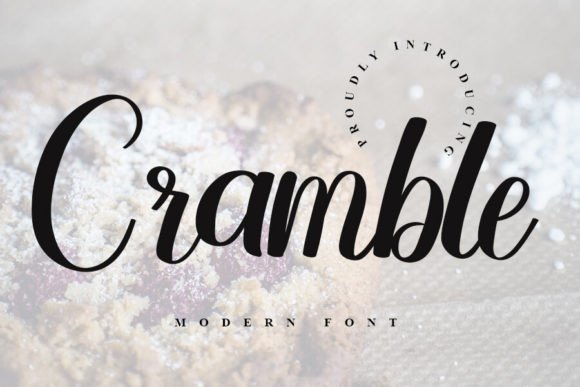
Introducing Cramble Font: The Enchanting Script Font That Will Elevate Your Designs to New Heights
In a world of ordinary fonts, Cramble Font stands out as a breath of fresh air, a font that captures the essence of creativity and innovation. Its meticulously crafted curves and elegant lines dance across the page, captivating the reader and leaving a lasting impression.
Immerse yourself in the allure of Cramble Font, a script font that exudes charm and sophistication. Its delicate strokes and playful flourishes add a touch of whimsy to any project, whether it's a YouTube banner, cover logo mockup, wedding invitation, ID card, flyer, or craft project.
With Cramble Font, you'll embark on a journey of self-expression, turning your creative visions into reality. Unleash your inner artist and let your imagination soar as you explore the endless possibilities of this captivating font.
Step into a realm of endless creativity, where Cramble Font transforms your designs into works of art. Its versatility knows no bounds, adapting seamlessly to a myriad of projects and styles. Experience the joy of crafting stunning logos that exude professionalism and leave a lasting impact on your audience.
Indulge in the beauty of Cramble Font's handwritten charm, a font that evokes a sense of nostalgia and warmth. Its flowing lines and graceful curves add a personal touch to your designs, creating a connection with your audience that resonates on a deeper level.
Unlock the power of Cramble Font and watch your business flourish. Its unique and captivating style attracts attention and sets you apart from the competition. Elevate your brand identity with a font that speaks volumes about your commitment to excellence and innovation.
Embark on a creative adventure with Cramble Font, a font that will ignite your passion and fuel your imagination. Its versatility and charm make it the perfect choice for a wide range of projects, ensuring that your designs leave a lasting impression and captivate your audience.